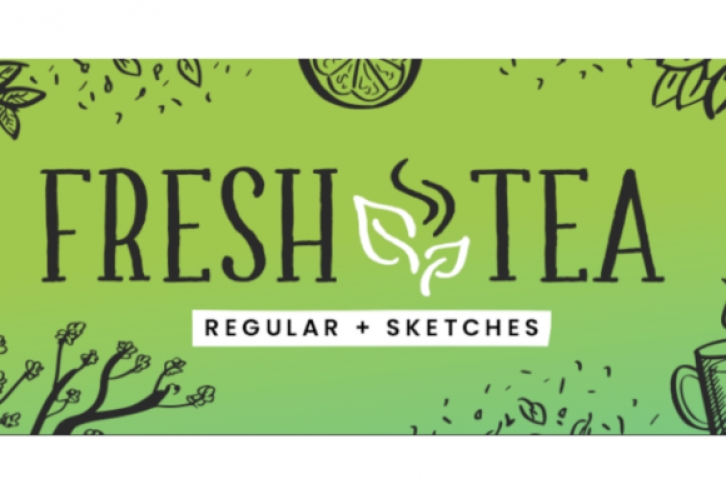
Fresh Tea is a sweet and natural serif font. As a result of its simplicity, it can be added to a wide variety of designs, so employ it confidently and you will not be disappointed of the results!